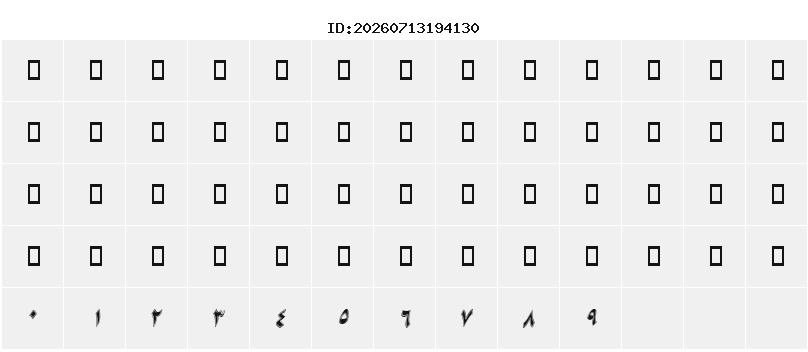
B Niki Border Preview
• Font Name: B Niki Border
• Font ID: Borna Niki Border Italic
• Full Font Name: B Niki Border Italic
About B Niki Border.ttf
B Niki Border.ttf is a modern, elegant sans-serif font designed for ultimate readability and visual harmony. Perfect for branding, headlines, web design, and print materials.